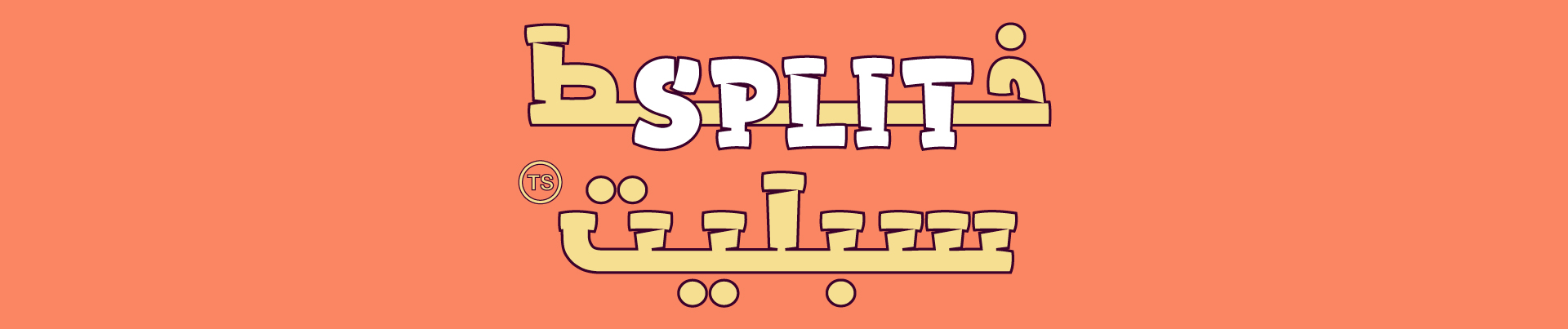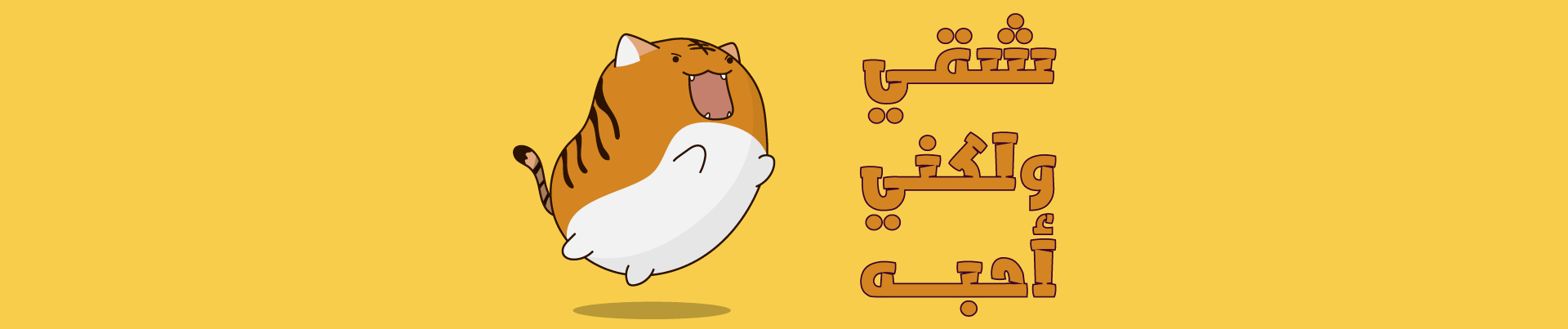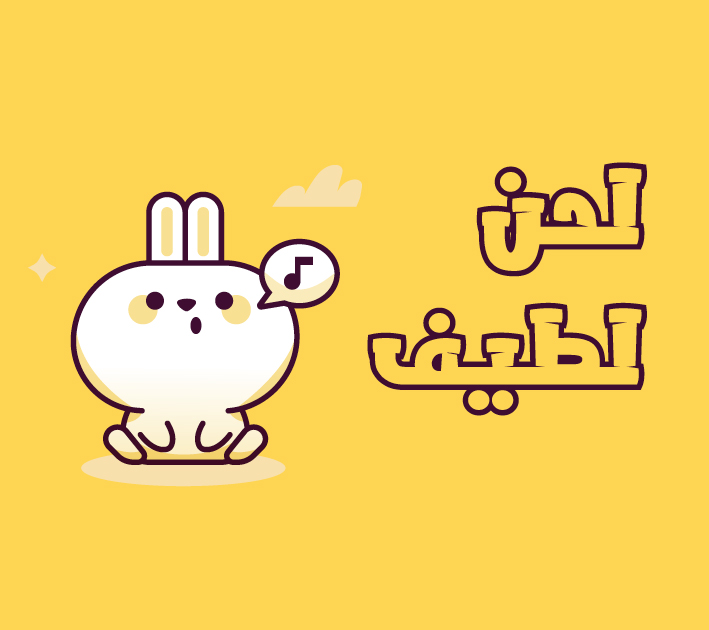
About Split Font
Introduction:
Split is an Arabic font with a childish design. Its cute letters can be added to friendly and colorful illustrations for kids, comics, sweets packaging, or video tutorials for younger audiences. The youthful spirit of Split is contagious, so you can extend your work and feature it in textbooks, social media posts, and ads while keeping its colorful tones.
Weights and Supported Languages:
It is available in one Weight
It supports the Arabic language
Usage:
Suitable for headlines, comics, sweets packaging, social media posters